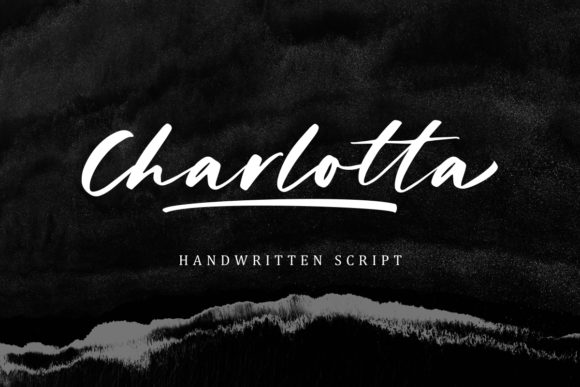
Introducing Charlotta Font: Elevate Your Design with a Modern Handwritten Script
In the world of typography, fonts play a crucial role in conveying the tone and personality of a brand or design. For designers and crafters looking to add a touch of modern charm to their projects, Charlotta Script is an excellent choice. This natural handwritten script font boasts a contemporary feel that’s sure to elevate your designs and make them stand out.
What is Charlotta Script?
Charlotta Script is a beautifully crafted handwritten font that exudes a sense of elegance and sophistication. Its natural, flowing strokes give it a unique and organic feel that’s perfect for a wide range of design applications. Whether you’re working on a branding project, creating wedding invitations, or designing social media graphics, Charlotta Script is an excellent choice.
Key Features of Charlotta Script
• Natural Handwritten Look: Charlotta Script has a genuine handwritten feel that’s sure to add a personal touch to your designs.
• Contemporary Feel: Despite its classic handwritten look, Charlotta Script has a distinctly modern feel that’s perfect for designers looking to create fresh and trendy designs.
• Versatile: Charlotta Script is suitable for a wide range of design applications, from branding and advertising to packaging and social media graphics.
• Elegant and Sophisticated: The font’s flowing strokes and elegant letterforms make it perfect for designs that require a touch of sophistication.
How to Use Charlotta Script in Your Designs
Charlotta Script is an incredibly versatile font that can be used in a variety of design applications. Here are a few ideas to get you started:
• Branding and Logo Design: Use Charlotta Script to create a unique and memorable brand identity that stands out from the crowd.
• Wedding Invitations and Stationery: Add a touch of elegance and sophistication to your wedding invitations and stationery with Charlotta Script.
• Social Media Graphics: Use Charlotta Script to create eye-catching social media graphics that showcase your brand’s personality.
• Packaging Design: Add a personal touch to your packaging designs with Charlotta Script, perfect for product labels, tags, and more.
Why Choose Charlotta Script?
With so many fonts to choose from, why should you choose Charlotta Script? Here are a few reasons:
• Unique and Memorable: Charlotta Script has a distinctive look that’s sure to make your designs stand out.
• High-Quality Design: The font is beautifully crafted with attention to detail, ensuring a high-quality finish.
• Easy to Read: Despite its elegant and sophisticated look, Charlotta Script is easy to read, making it perfect for body text and headlines.
Tips for Pairing Charlotta Script with Other Fonts
Pairing Charlotta Script with other fonts can create a unique and visually appealing design. Here are a few tips:
• Pair with a Sans-Serif Font: Pair Charlotta Script with a clean sans-serif font, such as Arial or Helvetica, to create a striking contrast.
• Combine with a Serif Font: Combine Charlotta Script with a serif font, such as Times New Roman or Georgia, to add depth and texture to your design.
• Experiment with Font Sizes: Play around with different font sizes to create visual interest and hierarchy in your design.
Charlotta Script is a beautiful and versatile handwritten font that’s perfect for designers and crafters looking to add a touch of modern charm to their projects. With its natural, flowing strokes and elegant letterforms, Charlotta Script is sure to elevate your designs and make them stand out. Whether you’re working on a branding project, creating wedding invitations, or designing social media graphics, Charlotta Script is an excellent choice.